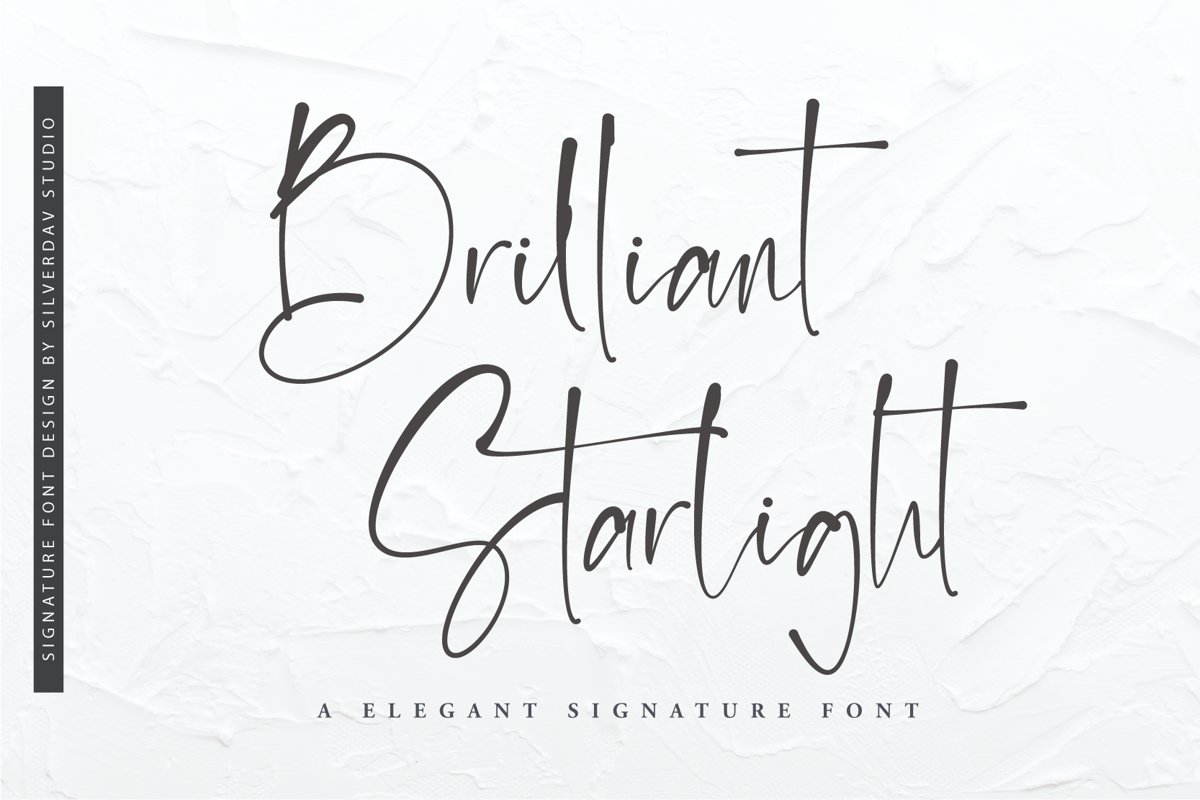
Brilliant Starlight - Elegant Signature Font
Brilliant Starlight Font
Let me introduce, Brilliant Starlight font, is a font that is perfect for signatures, logos, branding, quotes, etc., this font is made with natural writing, so it gives an elegant impression. Brilliant Starlight come with a unique LigatureBrilliant Starlight fonts are available (.otf & .ttf)